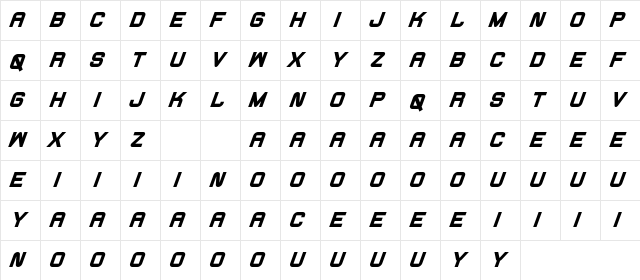
Fearcheer Demo Bold Italic
Design Context for Fearcheer Demo Typeface
Fearcheer Demo takes a measured approach to typography — its balanced proportions and neutral character make it a reliable workhorse for both digital and print work. The slanted form adds forward momentum and visual energy. The heavy weight commands attention and anchors typographic hierarchies.
Pro Tip: Try Fearcheer Demo for annotation and caption copy alongside an upright companion — the contrast in angle creates a dynamic but ordered typographic system.